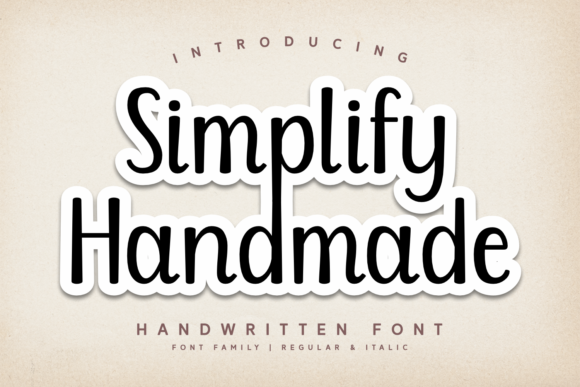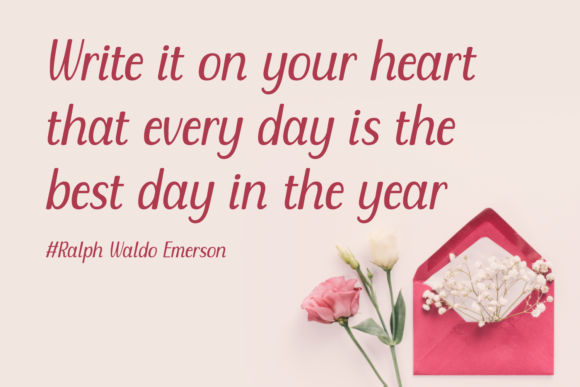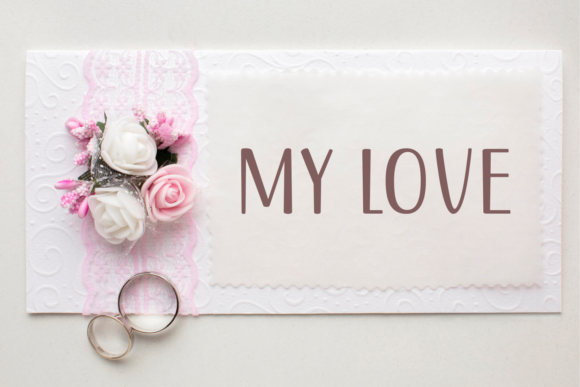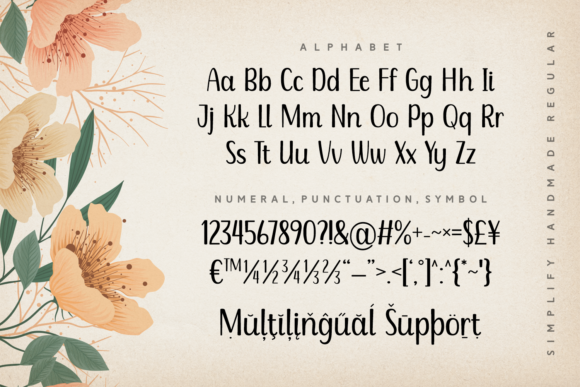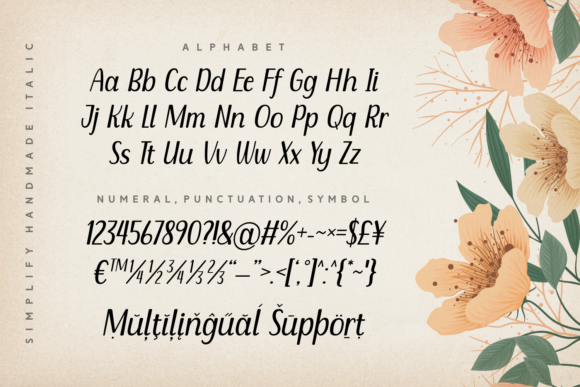
Simplify Handmade Font
Introducing “Simplify Handmade,” a sweet and friendly handwritten font that brings a natural and unique style to a wide range of designs. Crafted with a touch of warmth, this font is versatile, making it a perfect fit for various creative projects. With “Simplify Handmade,” the only limit is your imagination!
The sweet and friendly demeanor of “Simplify Handmade” adds a personal touch to your designs. Its handwritten style imparts authenticity and approachability, making it suitable for a diverse array of applications. Whether you’re working on invitations, branding, or any other project that demands a friendly and natural aesthetic, this font is designed to complement your vision.
Imagine “Simplify Handmade” as the ideal font for expressing your creativity without constraints. Whether it’s designing cheerful greeting cards, playful social media graphics, or heartwarming quotes, let this font be the tool that adds a delightful and unique charm to your projects.
In summary, “Simplify Handmade” is more than just a font; it’s a sweet and friendly handwritten script crafted to bring a natural and unique touch to your designs. Embrace its versatility, and let your imagination soar as you create visually appealing and inviting works with the delightful charm of “Simplify Handmade.”